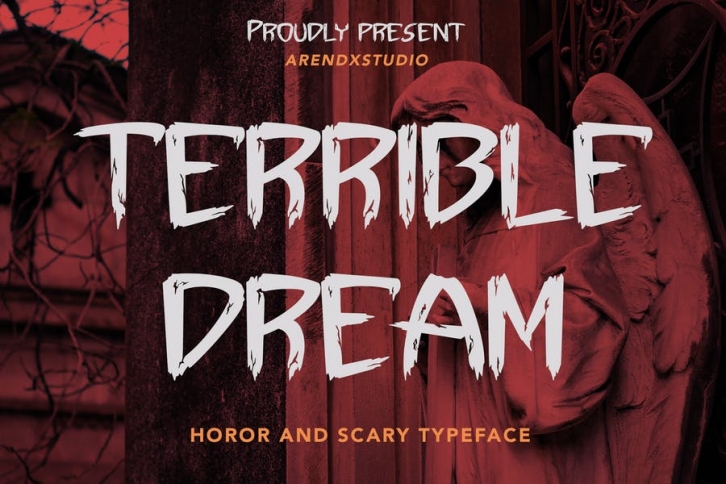
Terrible Dream - Horror And Scary Typeface is a display font that is inspired by horror style because its shape is very unique and is perfect for any project that you will use with this theme.
Terrible Dream came with opentype features such stylistic alternates, stylistic sets & ligatures good for logotype, poster, badge, book cover, tshirt design, packaging and any more.